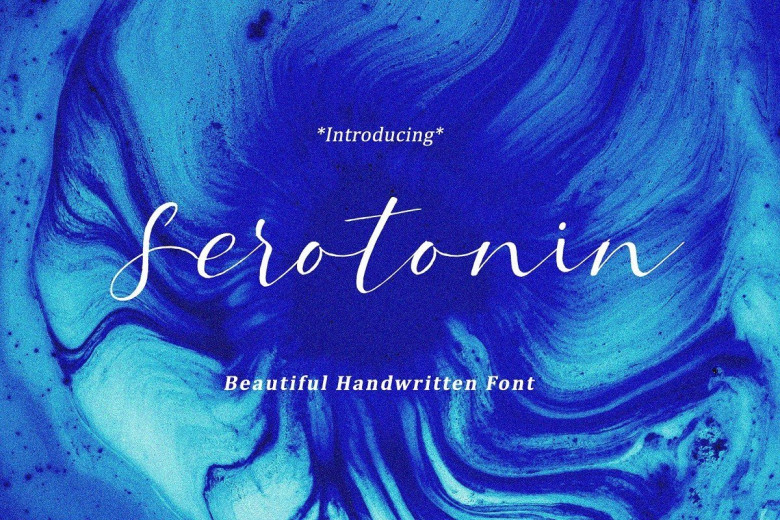
Serotonon Handwritten Script Font
Introducing Serotonon Handwritten Script Font – a new fresh & modern script with a handmade calligraphy style, decorative characters and a dancing baseline! So beautiful on invitation like greeting cards, branding materials, business cards, quotes, posters, and more design concept!